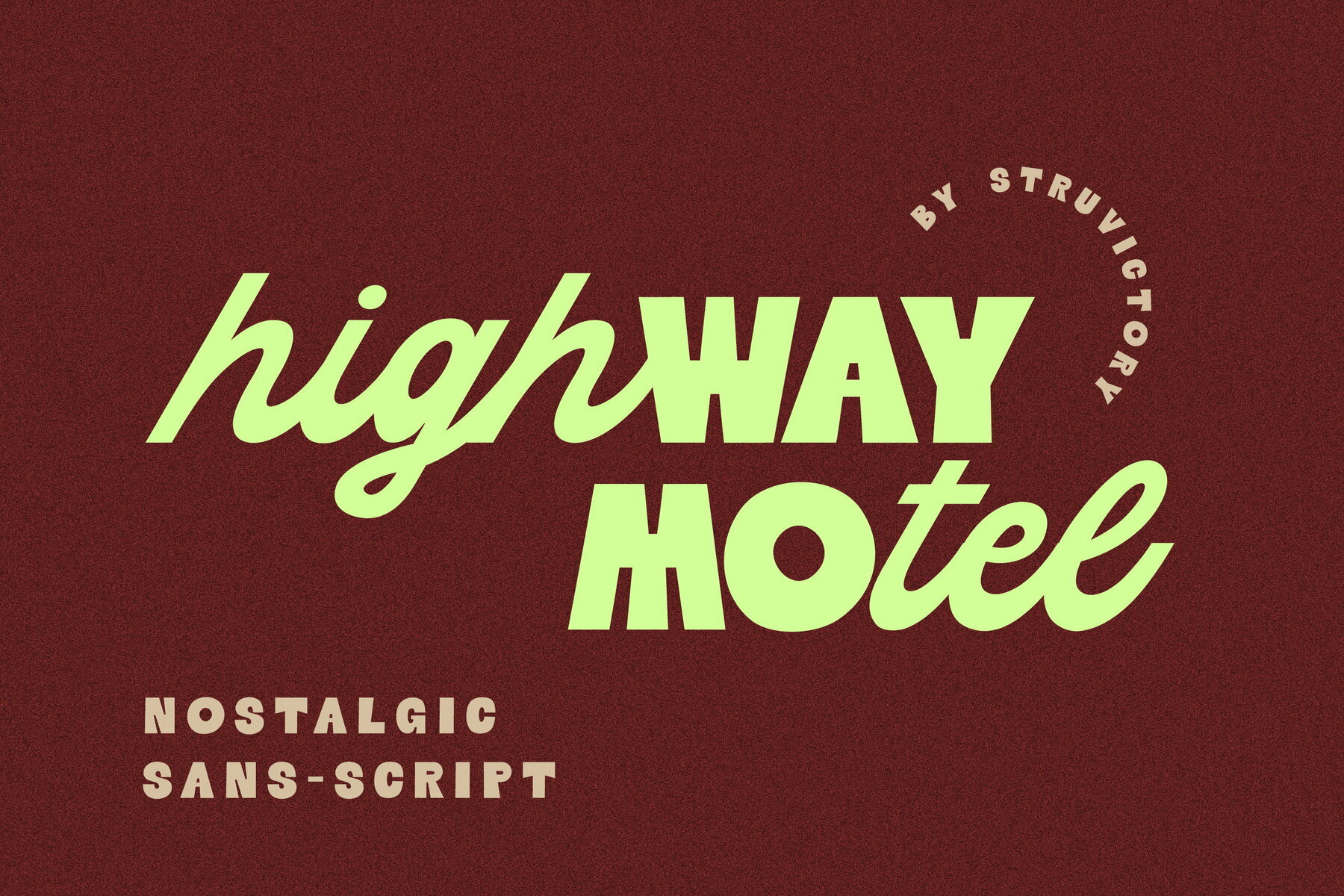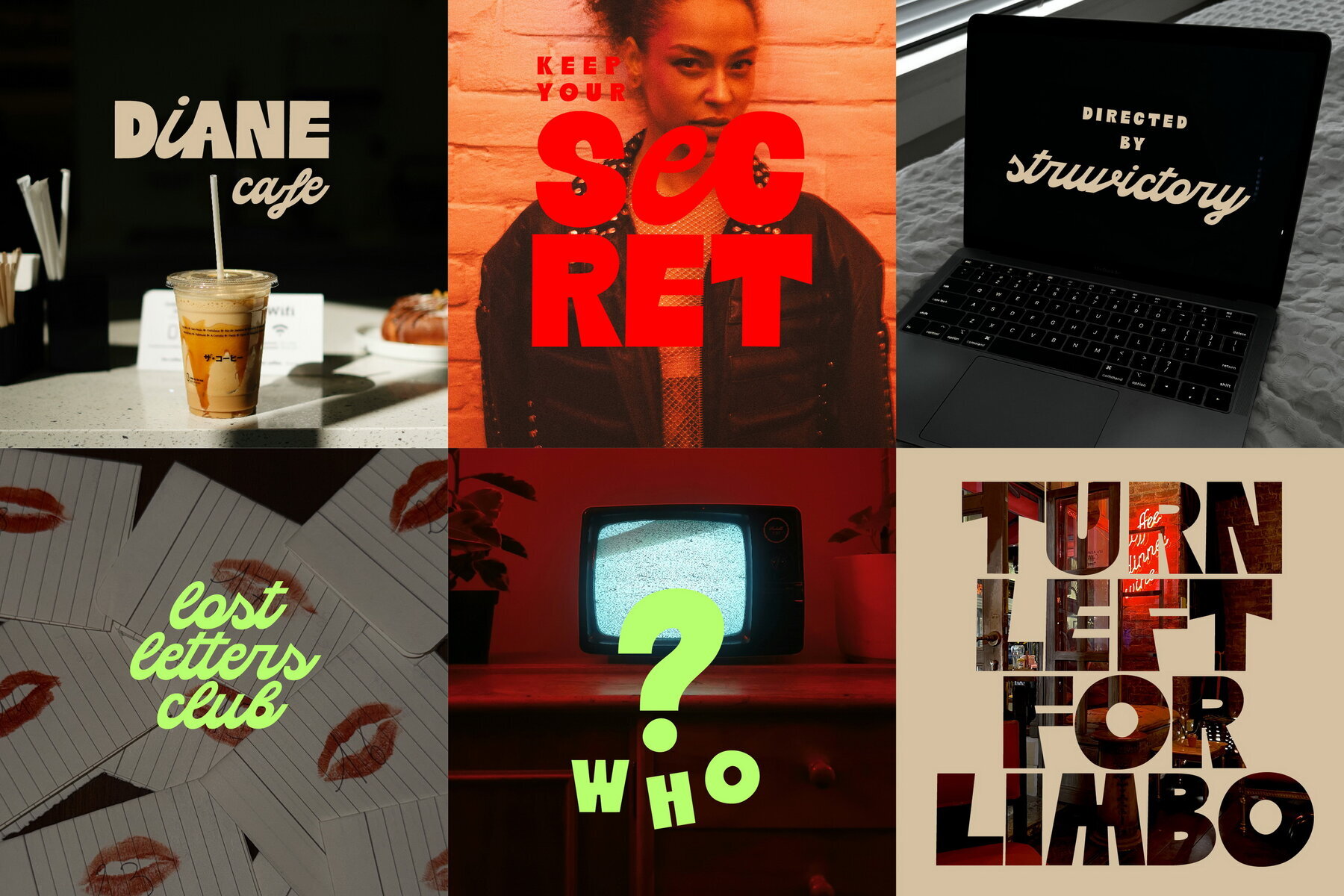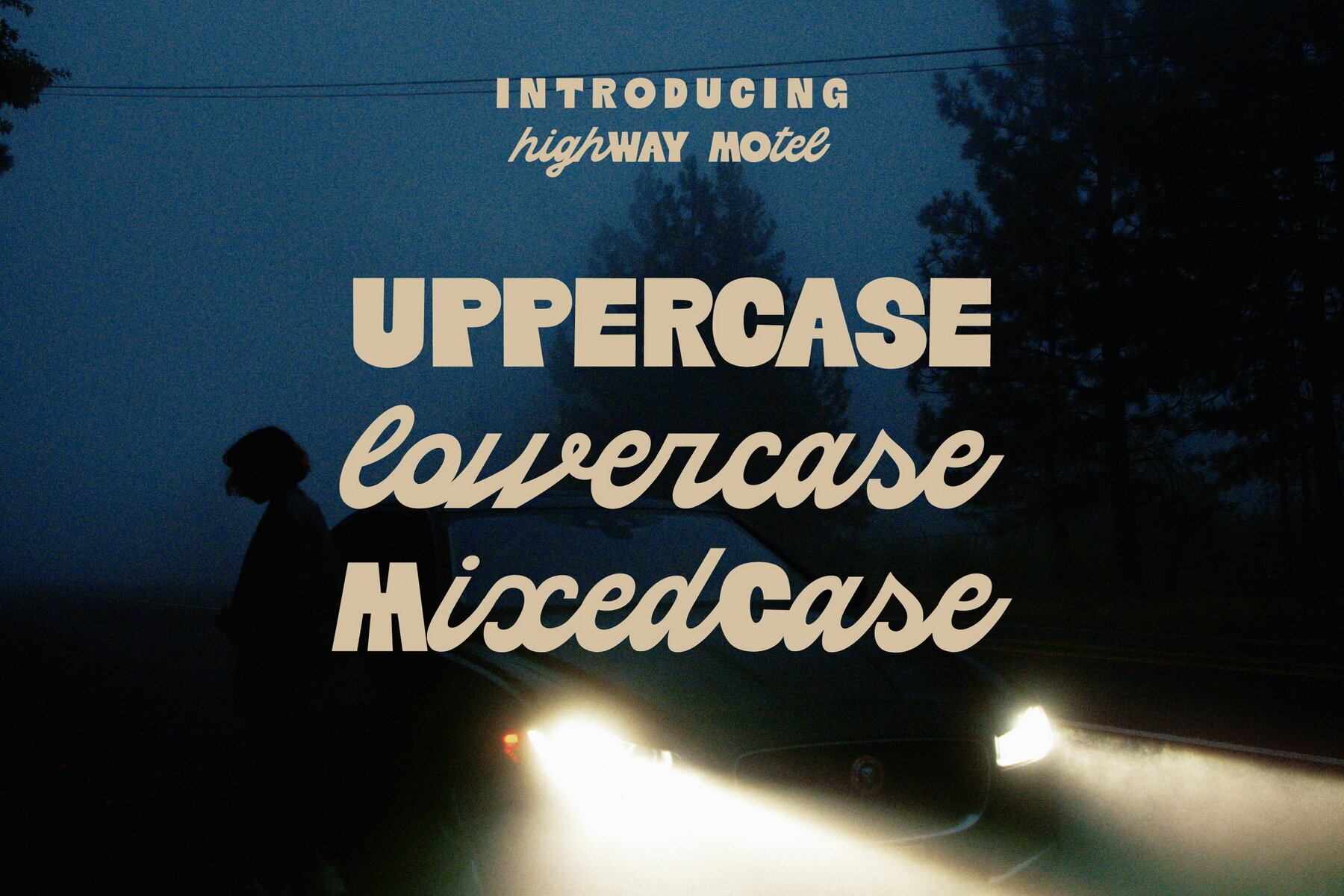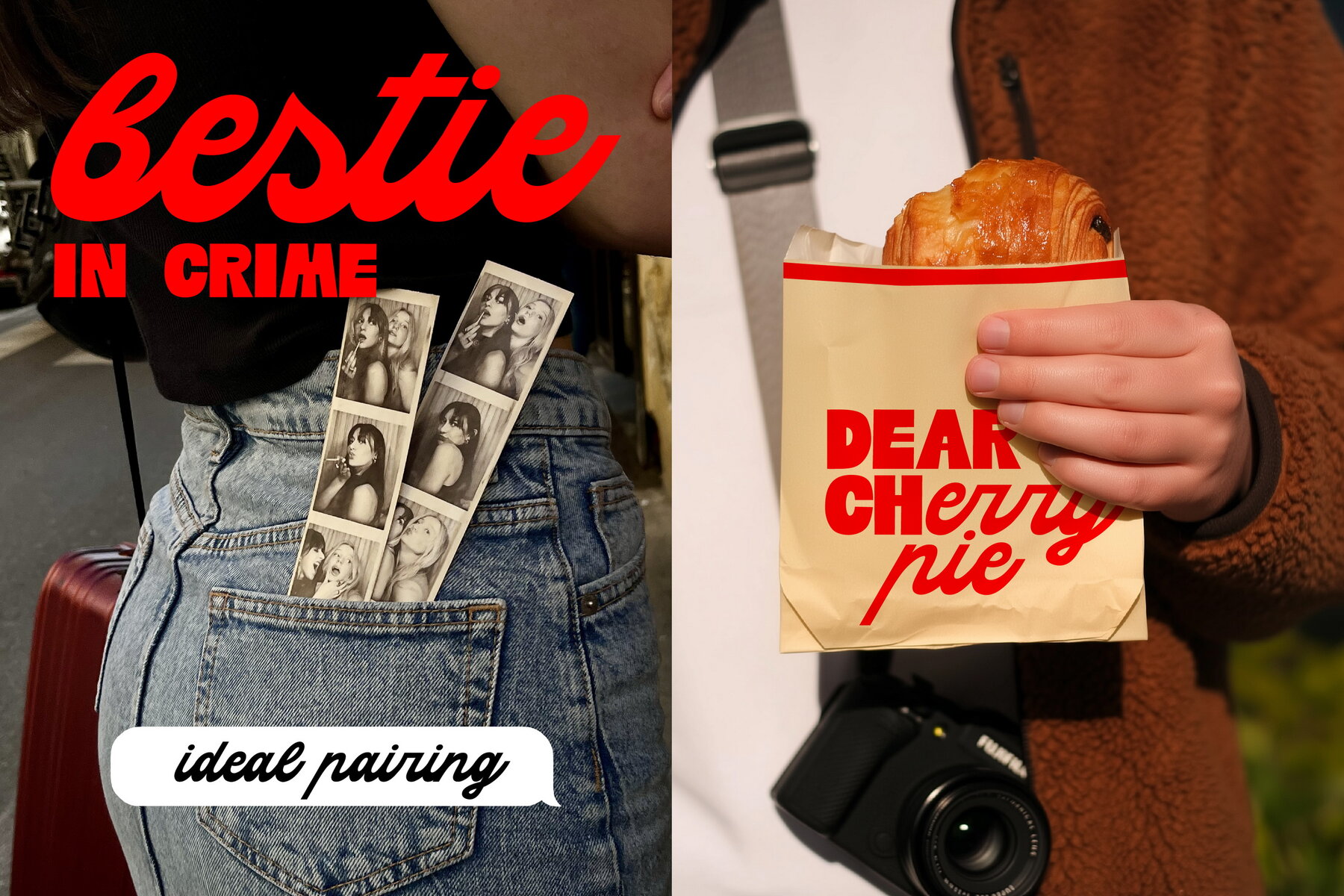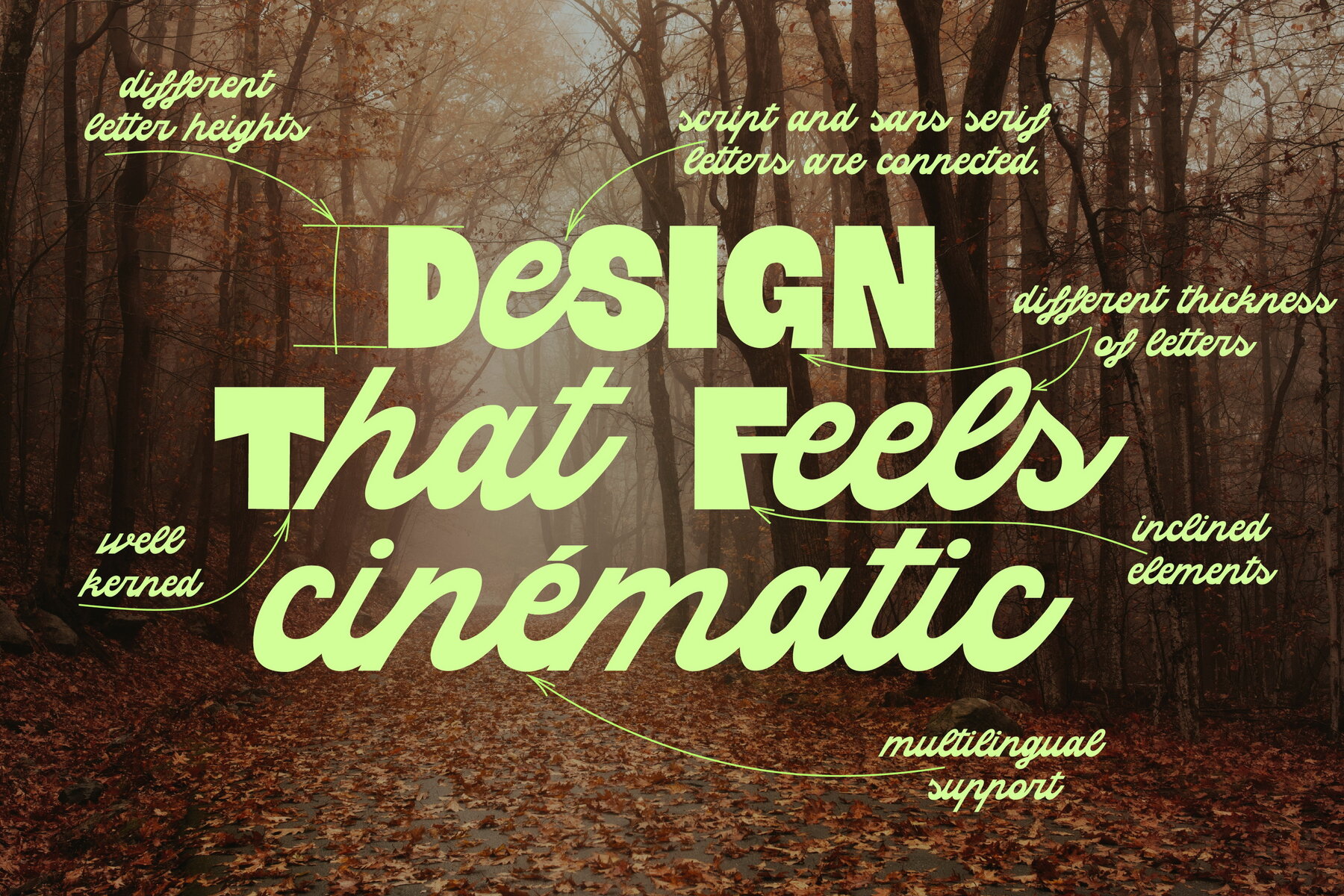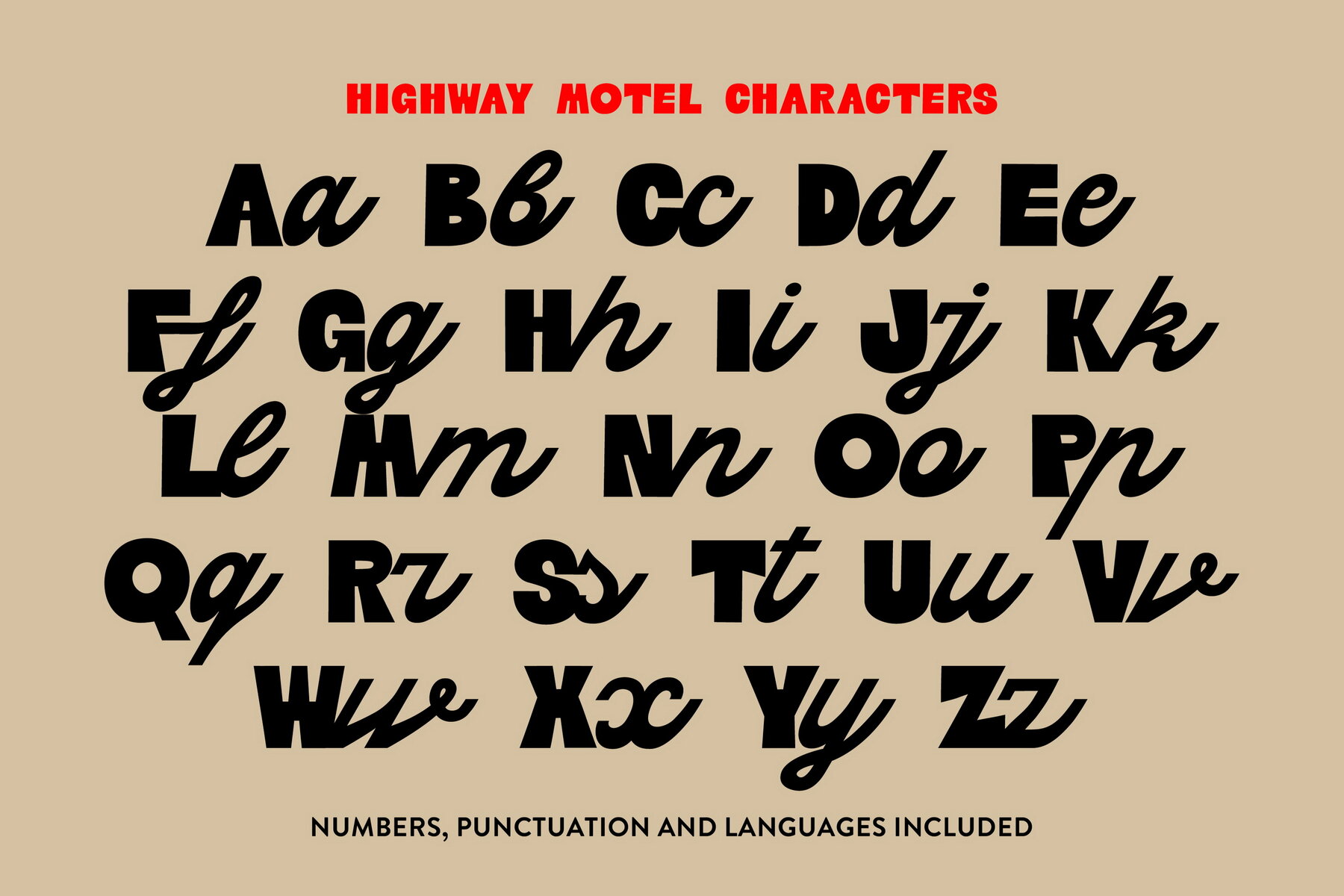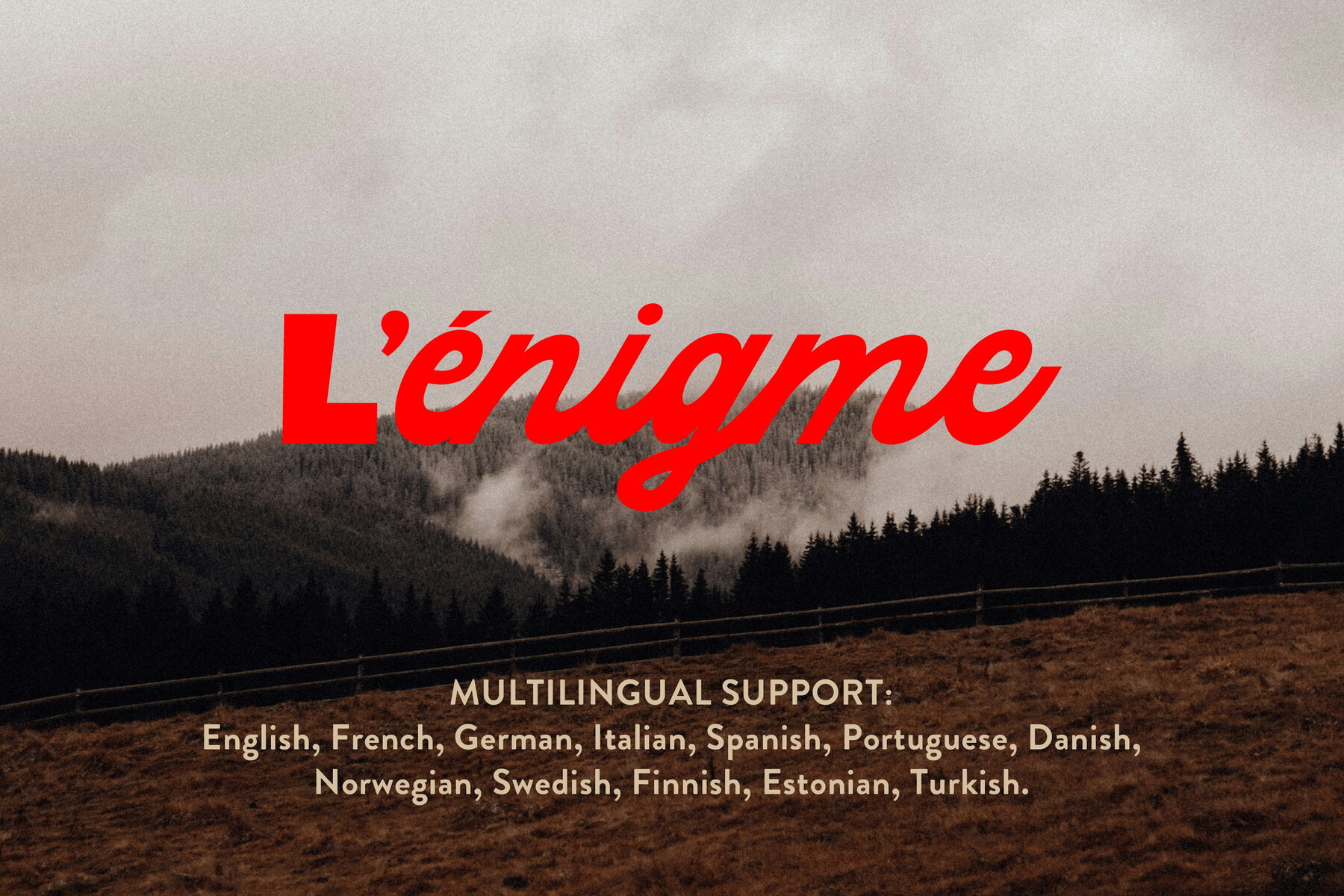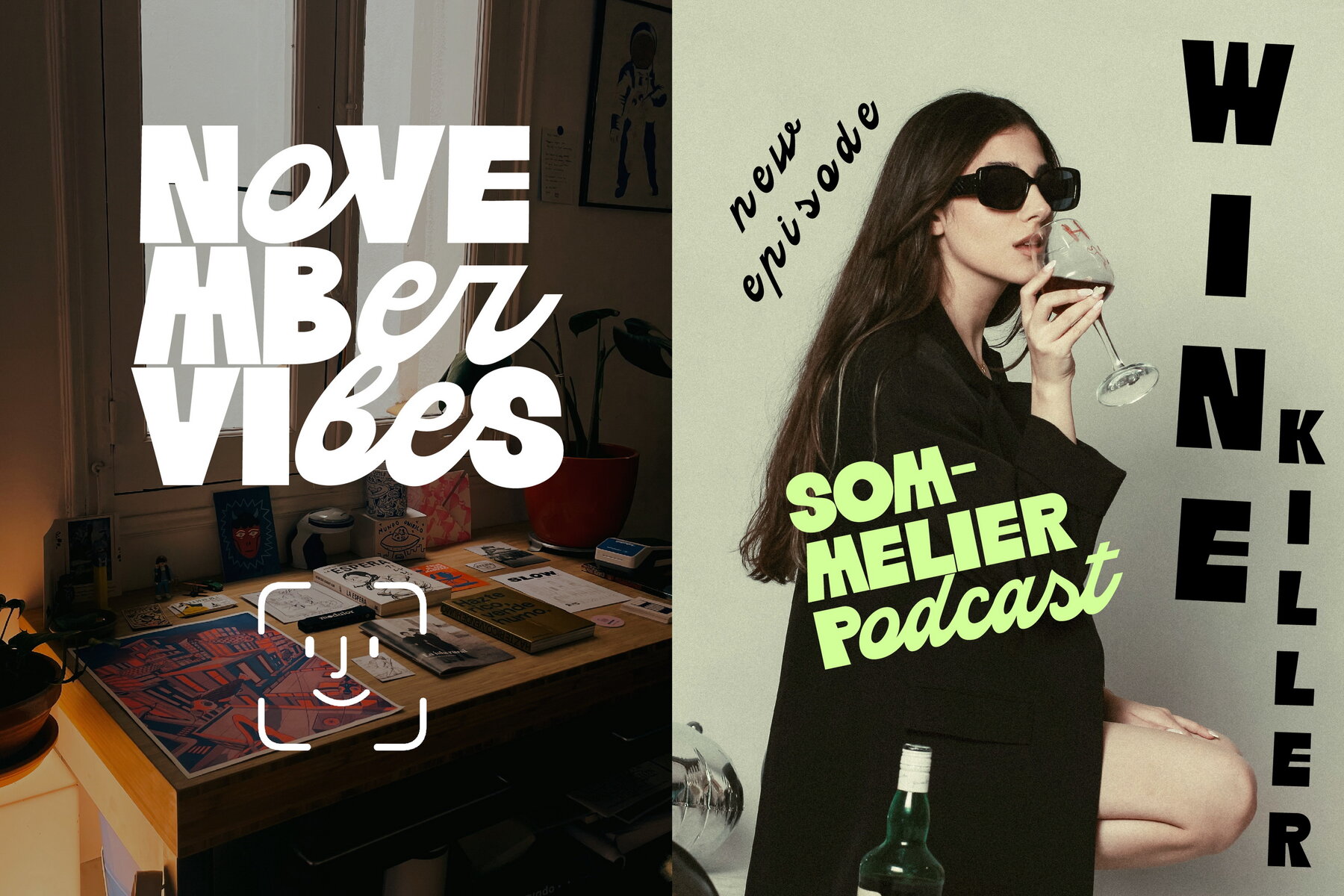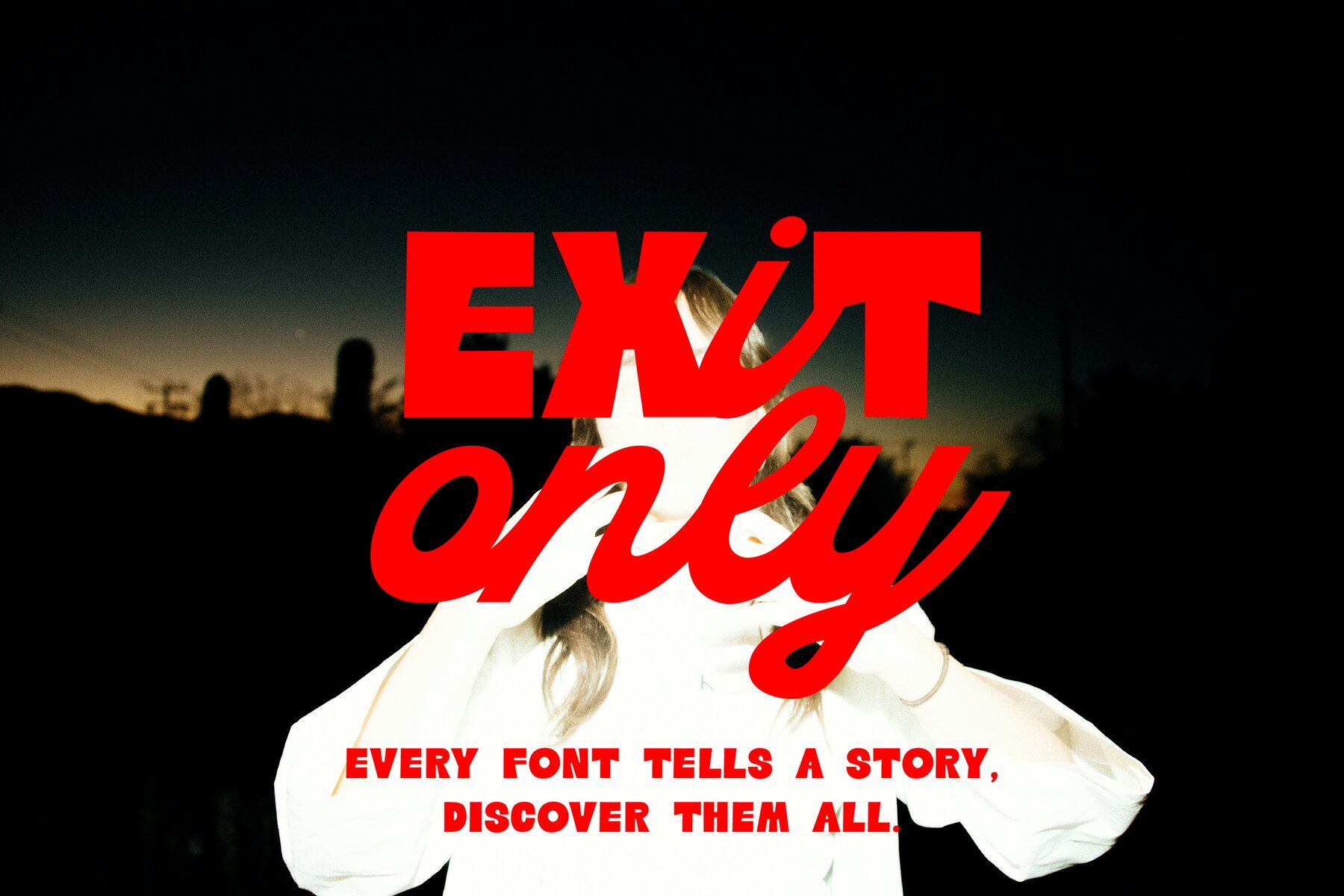
Highway Motel Font
Highway Motel Sans
Highway Motel captures an ambiance that evokes the magic of late-night movies—nostalgic, cinematic, yet effortlessly cool. This experimental typeface blends bold geometric sans serif uppercase with a flowing connected script in lowercase, offering both retro curves and a sense of motion. It elegantly bridges the vintage and modern, making it ideal for branding, posters, magazines, and social media.Highway Motel: A Cinematic Sans-Script Font